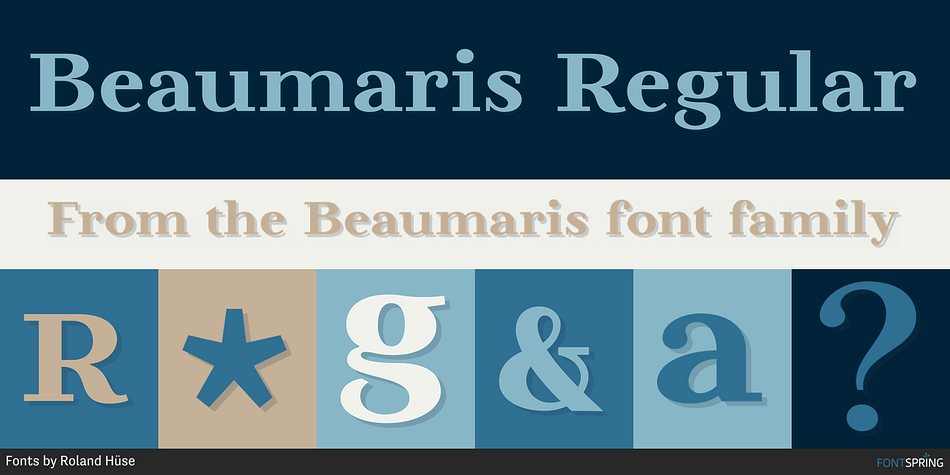
Beaumaris Regular
Designed by Roland Hüse, Beaumaris is a slab serif font published by Fonts by Roland Hüse.
Beaumaris is a serif typeface named after a nice bay area in Australia which I would like to visit one day. A modern bold serif with an art deco touch, this font is great choice for fashion brands, jewellery and magazine headlines.
It contains stylistic alternates, discretional and standard ligatures, small caps and fractions (see image gallery for details). The character set covers all Latin accented characters (including Schwa) and Russian cyrillic alphabet.